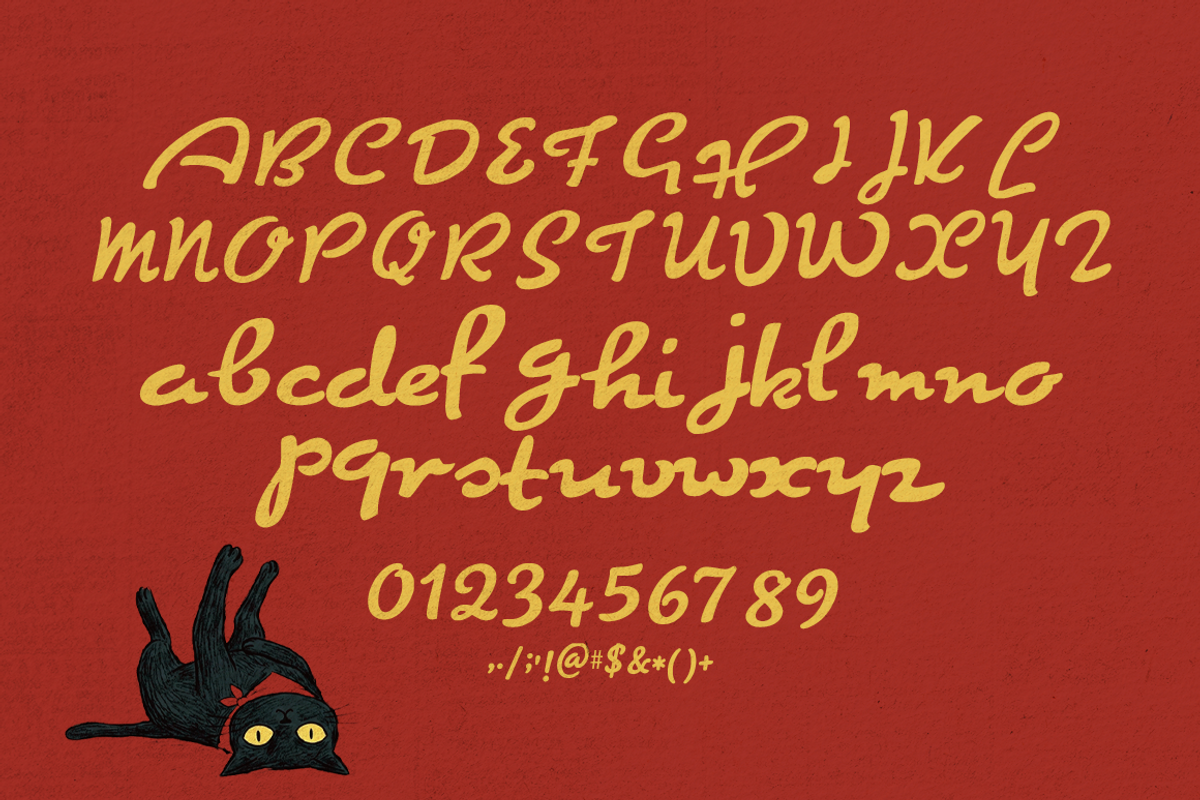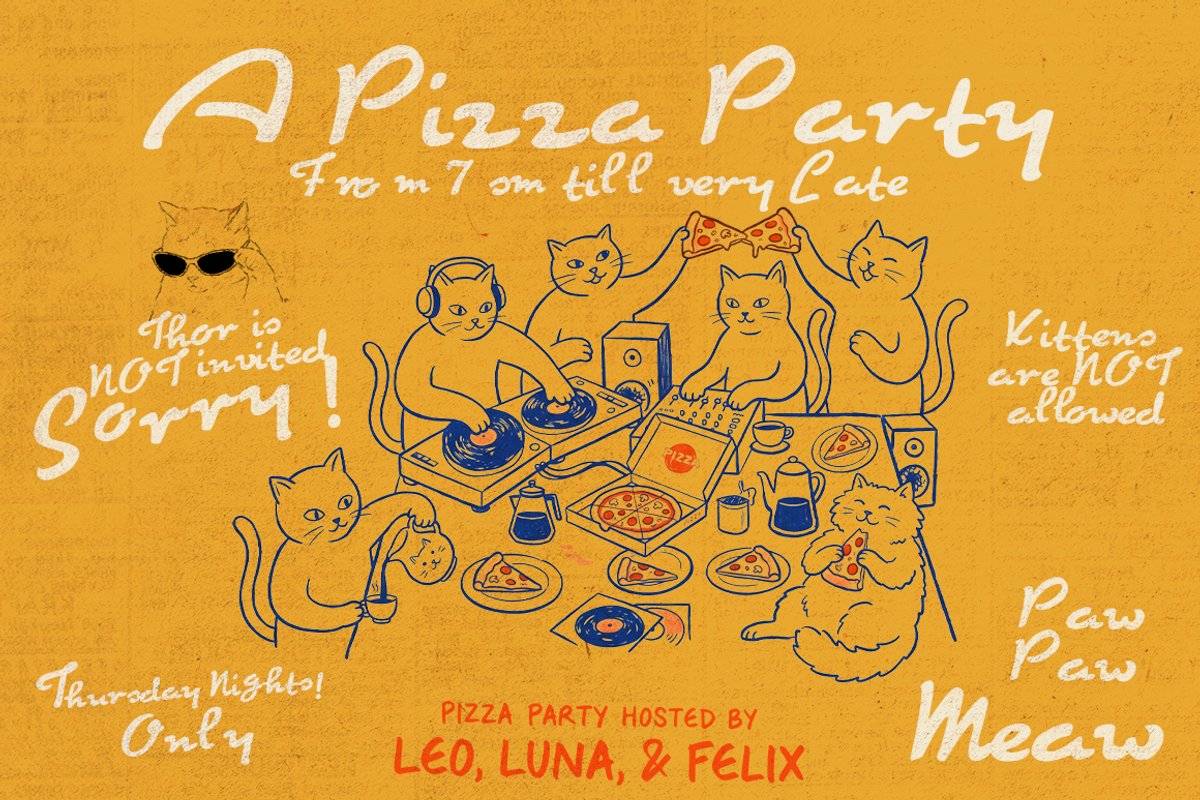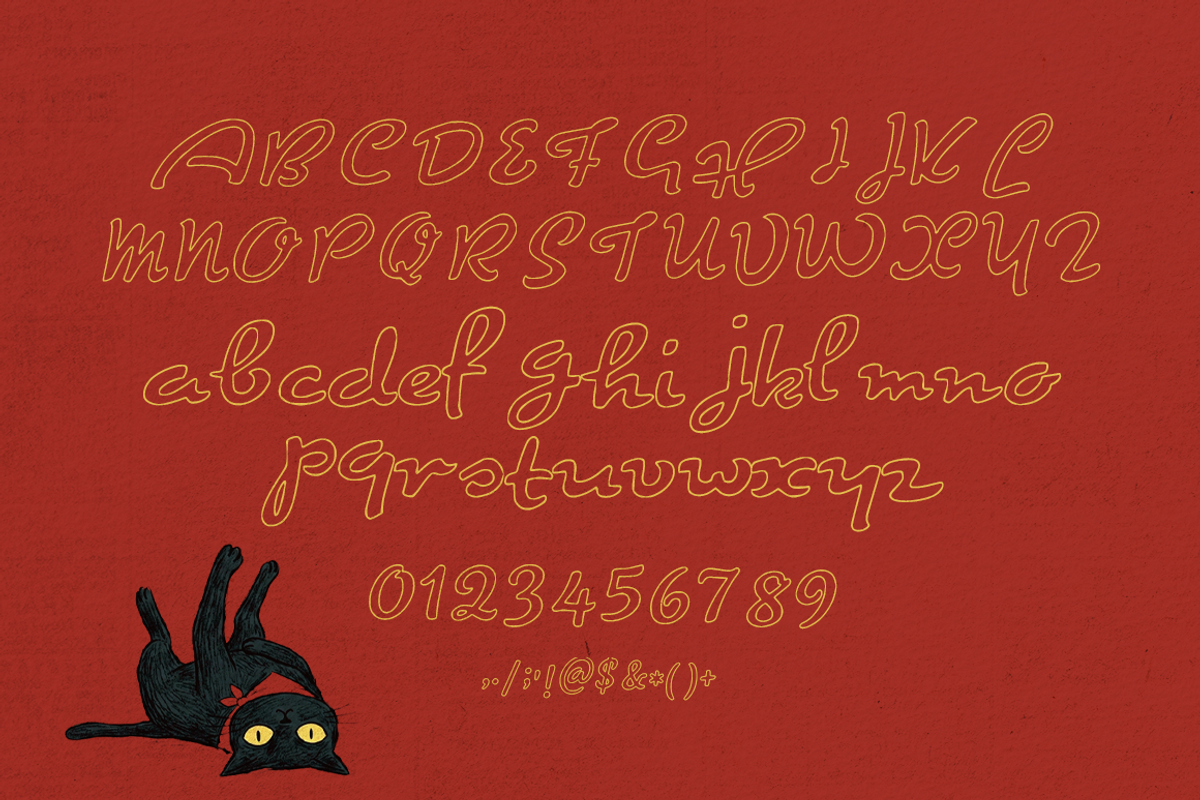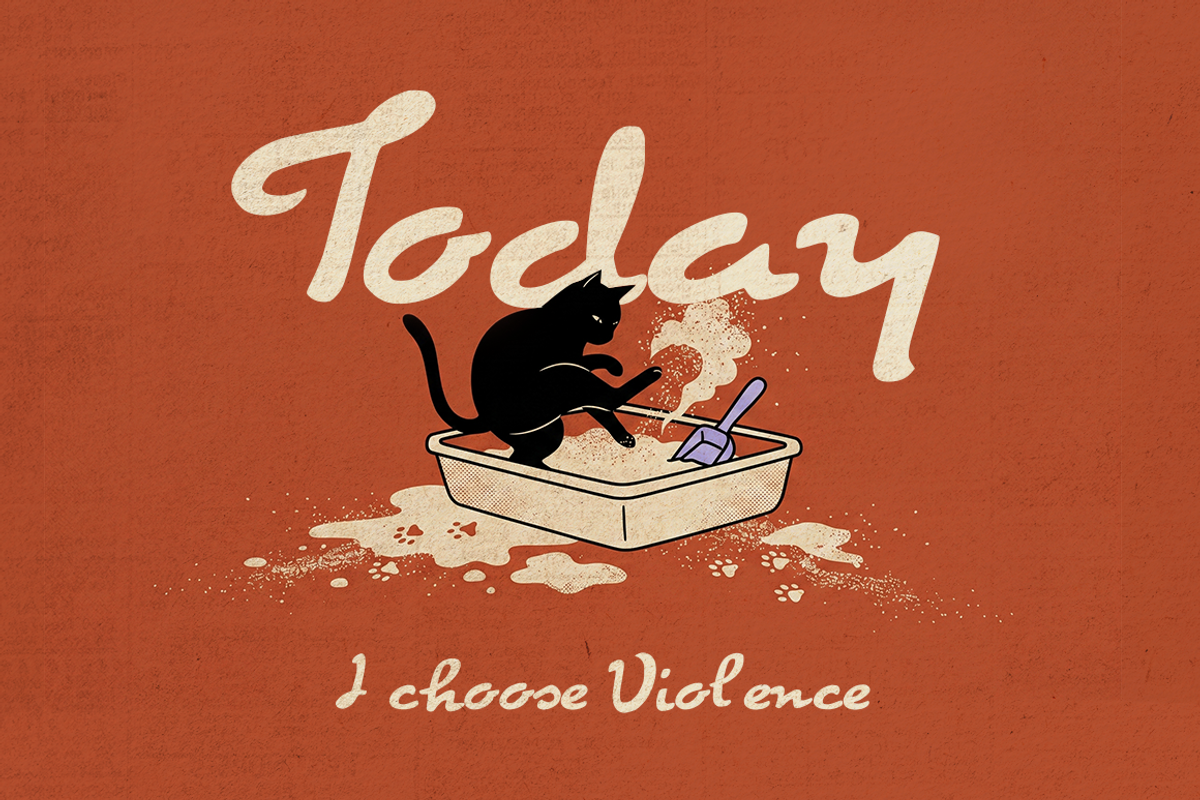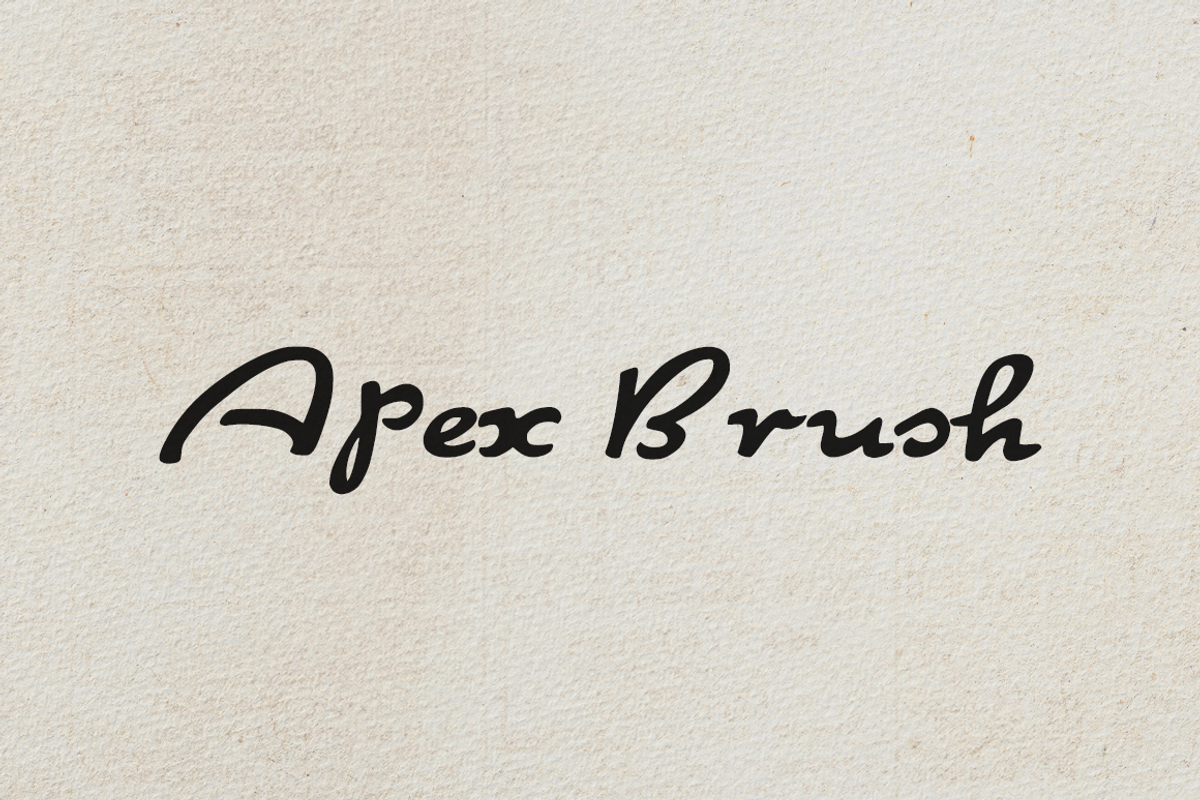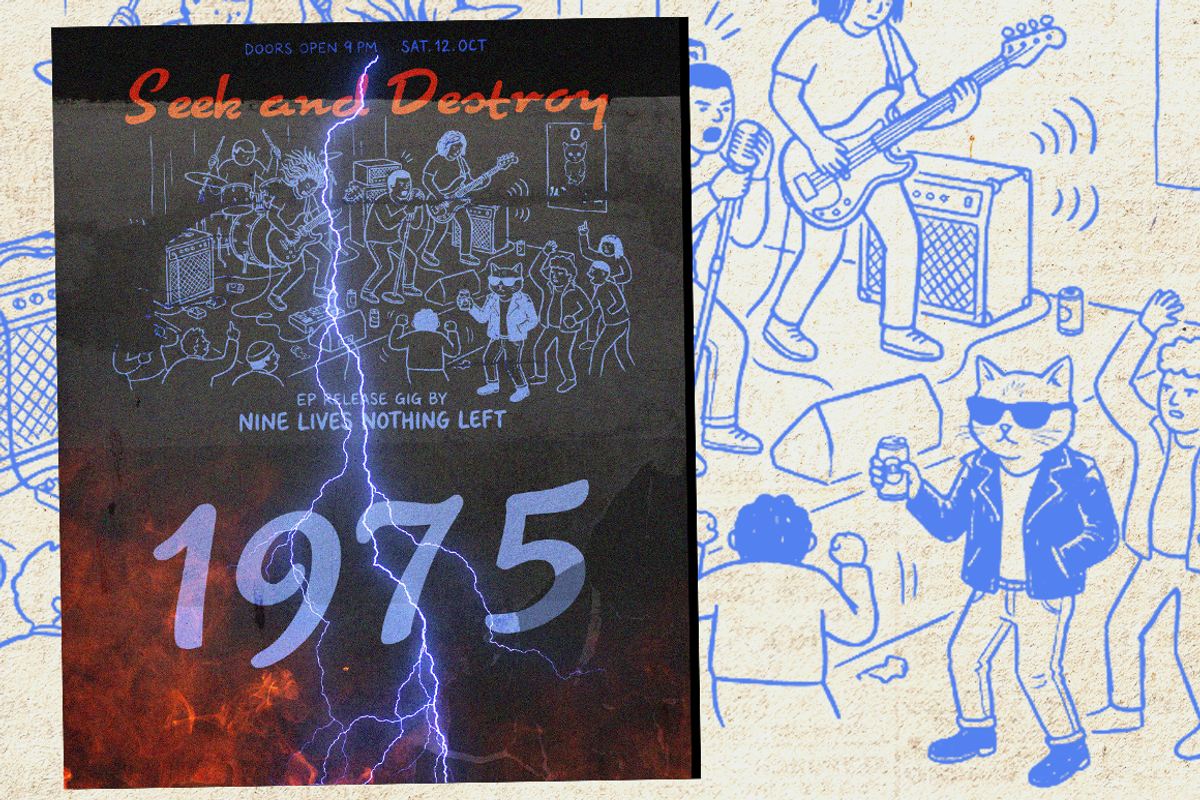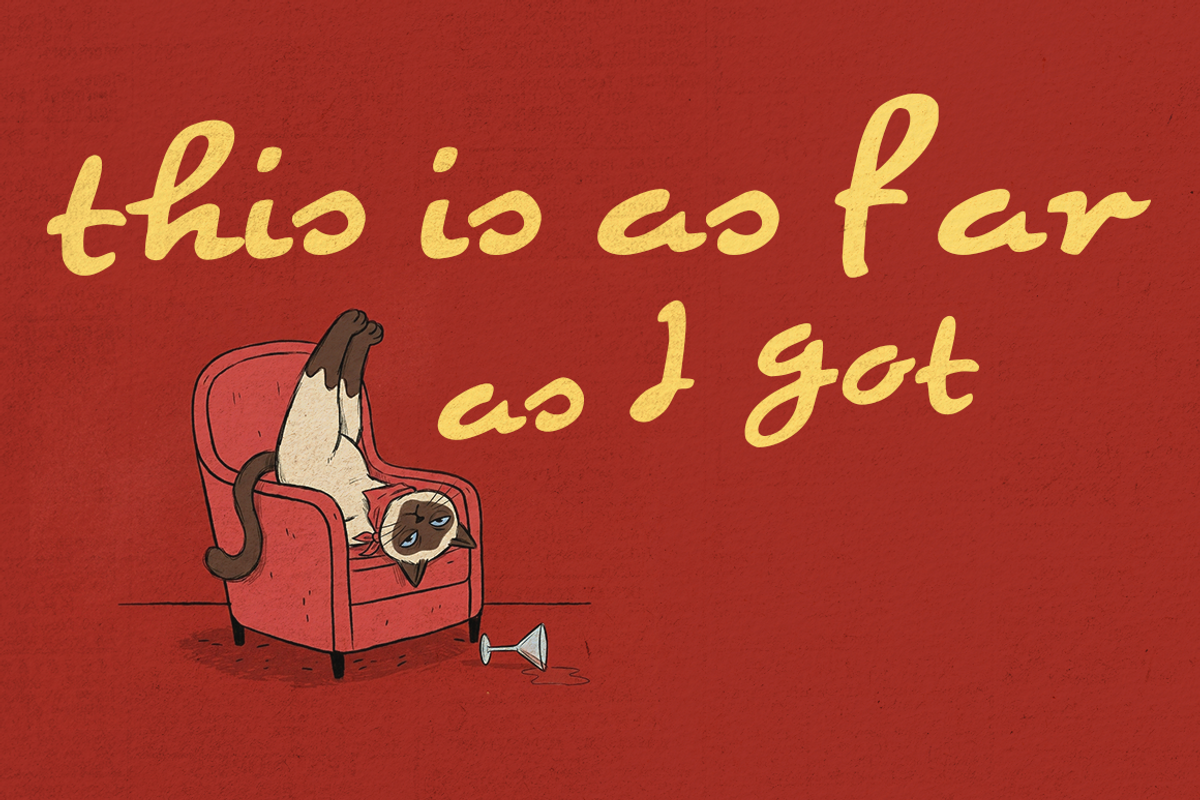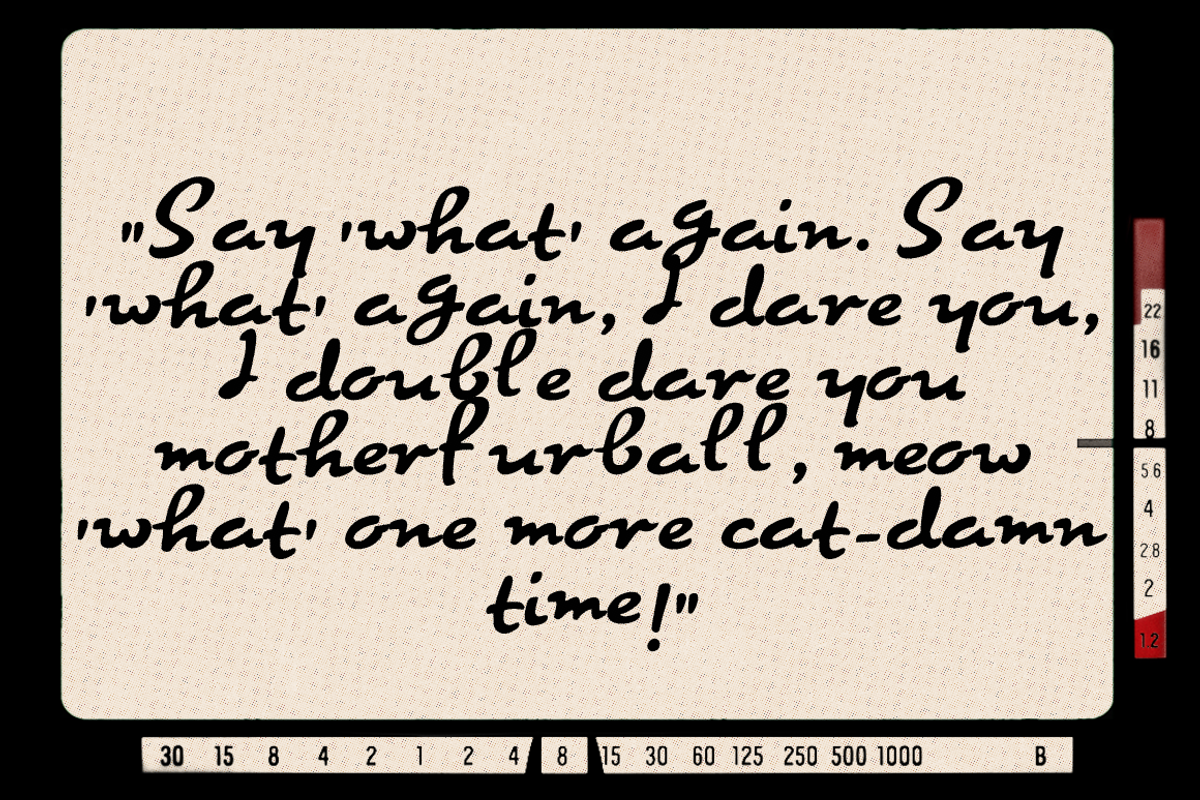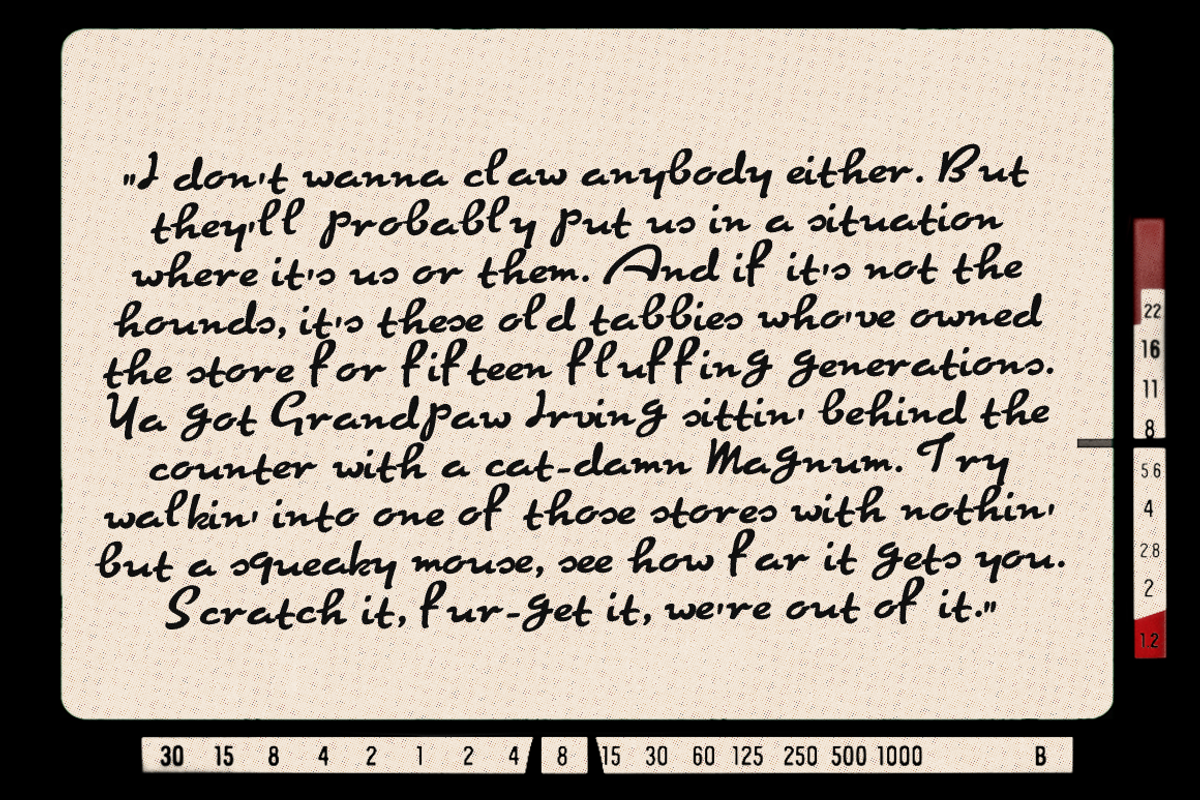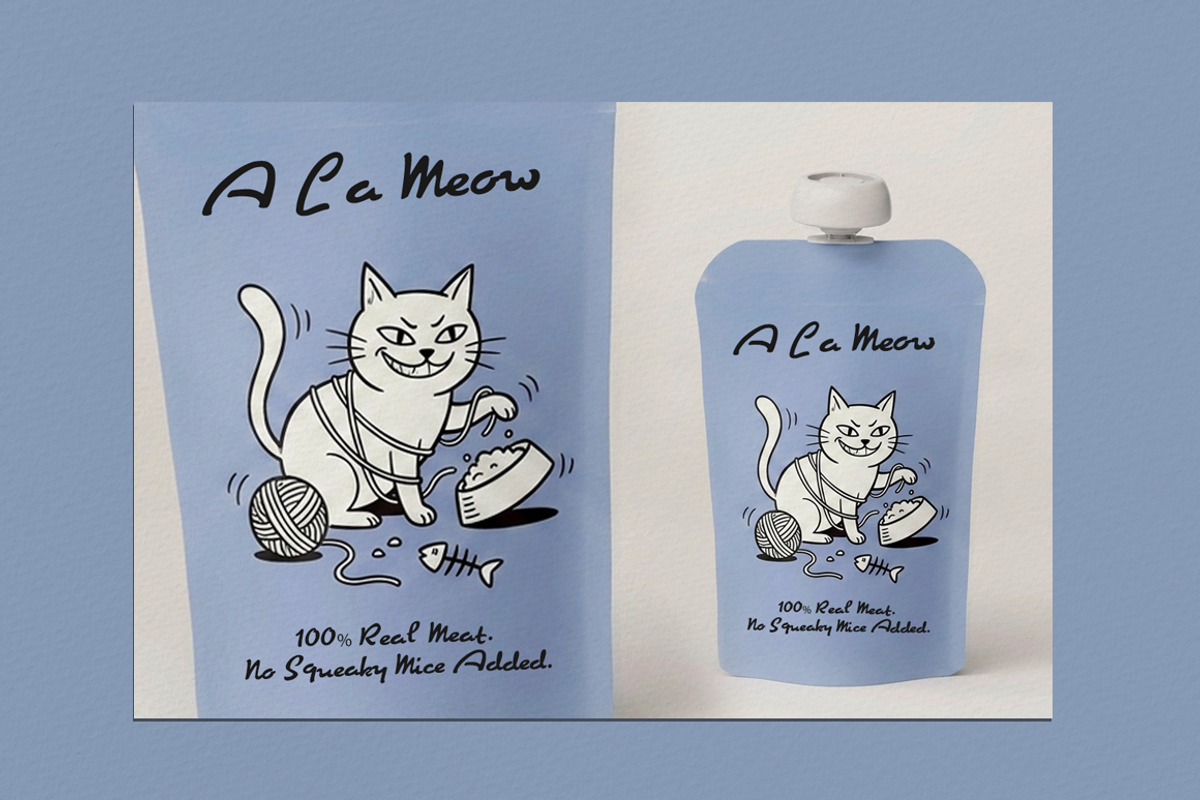
Apex Brush is a retro hand-drawn script I restored directly from historical lettering books. It gives you an authentic, vintage brush pen.
Solid: A thick, bold brush script.
Outline: A hollow, hand-traced version.
It looks awesome on vintage-style posters, retro merch, and custom branding.